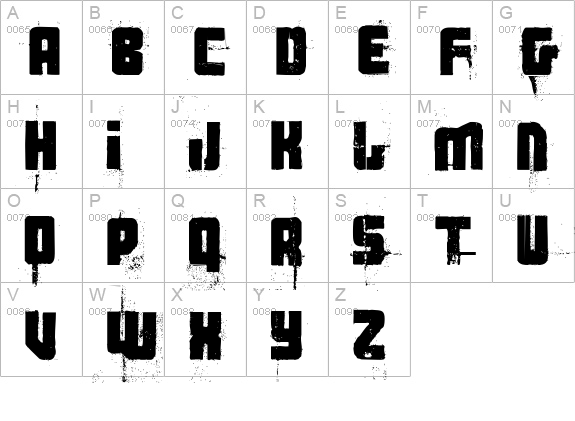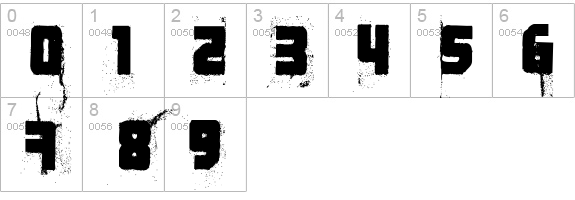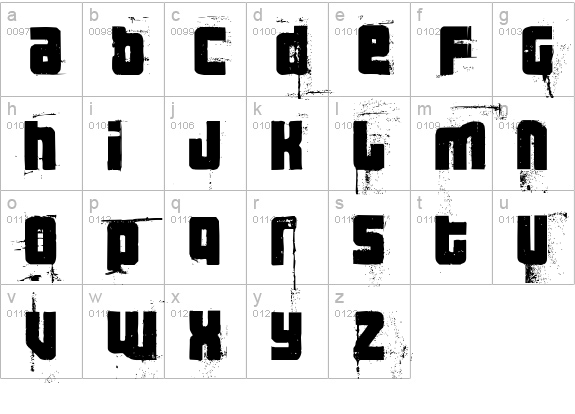
3 theHard way RMXfenotype Font Details
Three the Hard Way RMXfenotype is a bold and dynamic font that exudes strength and energy. With its sharp angles and striking letterforms, this font is perfect for creating eye-catching designs that demand attention. Whether you're working on a poster, logo, or website, Three the Hard Way RMXfenotype will make your text stand out with its unique style. And the best part? This fantastic font is available for free download at FontsMarket.com. That's right, you can add this versatile typeface to your collection without spending a dime. Don't miss out on the opportunity to elevate your design projects with Three the Hard Way RMXfenotype - get your free download today!